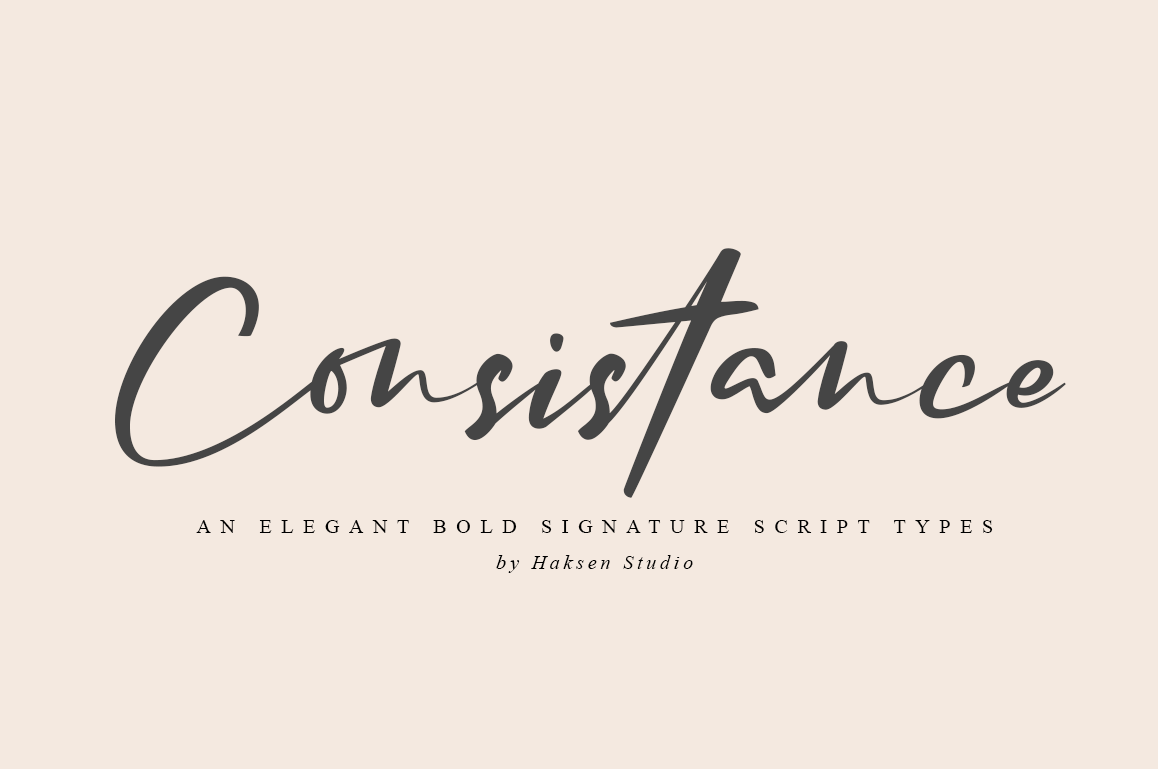
Consistance Bold Signature Script
Consistance is a stylish modern and natural handwritten script font with casual bold signature script type. It is perfect for branding, wedding invites and cards, and maybe for red wine label.
Consistance includes full set of gorgeous uppercase and lowercase letters, numerals, a large range of punctuation and ligatures.